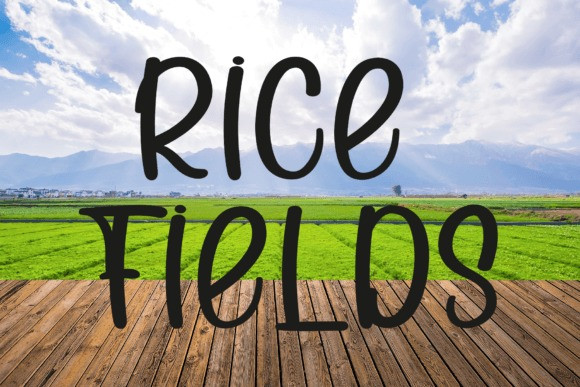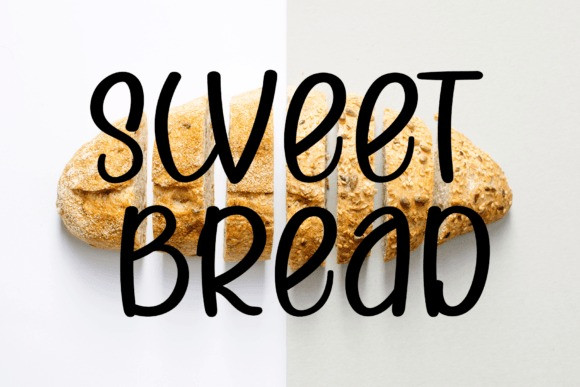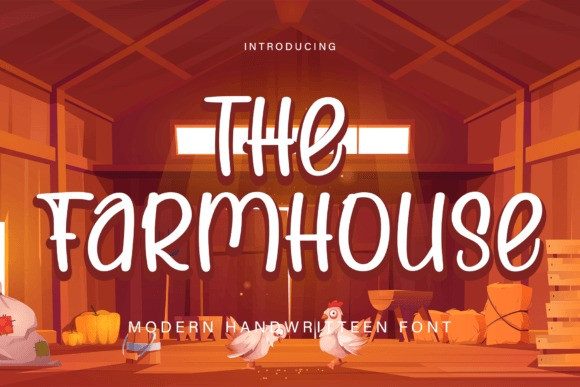
The Farmhouse Font
The Farmhouse Font is a cute handwritten font with a fun and quirky personality. Its irregular and playful letterforms create a sense of whimsy and individuality, making it perfect for designs that require a touch of uniqueness. Its natural, handwritten style adds a charming and personal feel to any project.